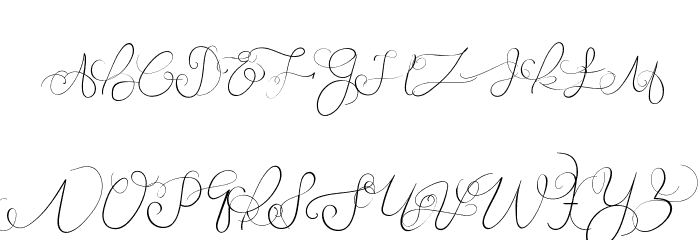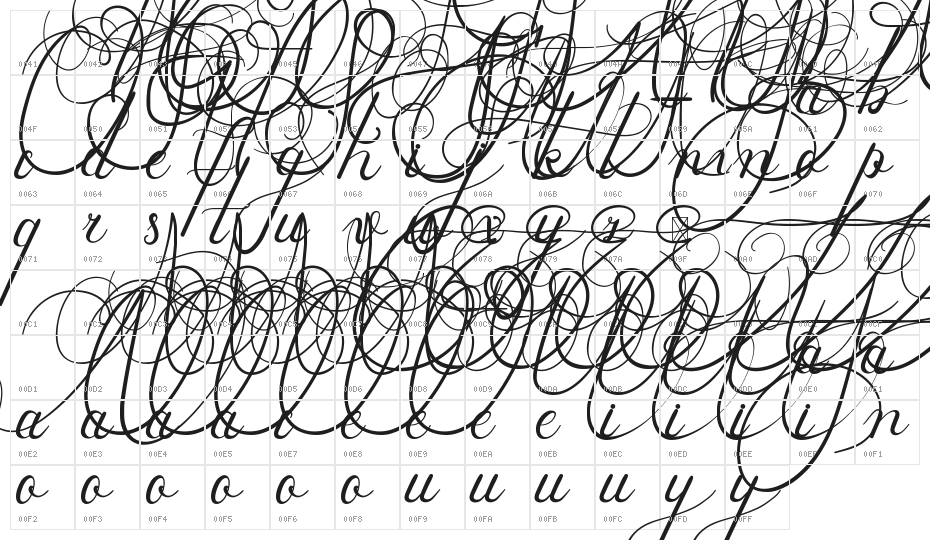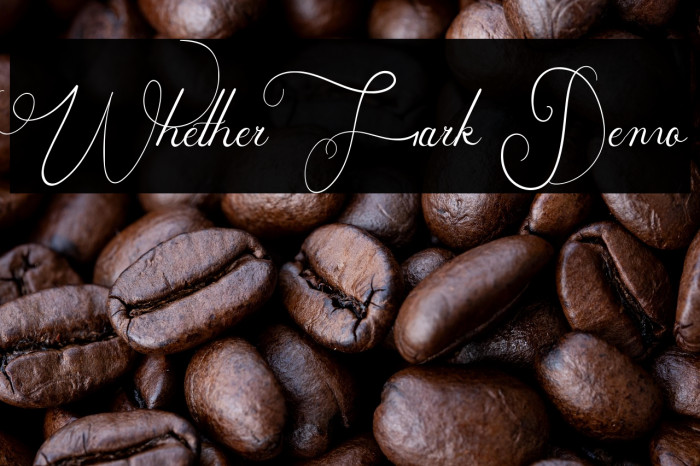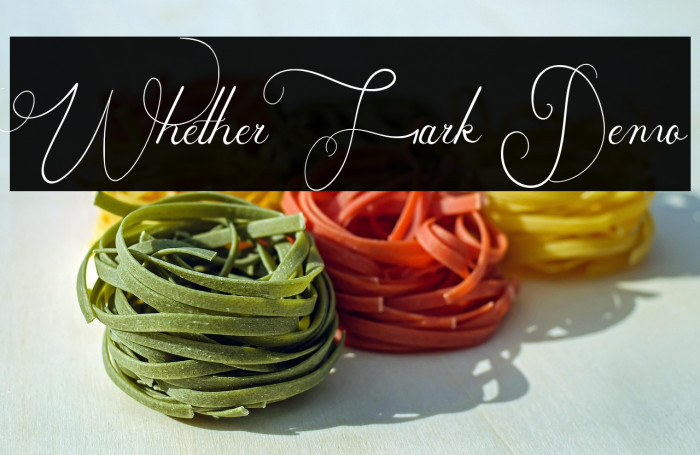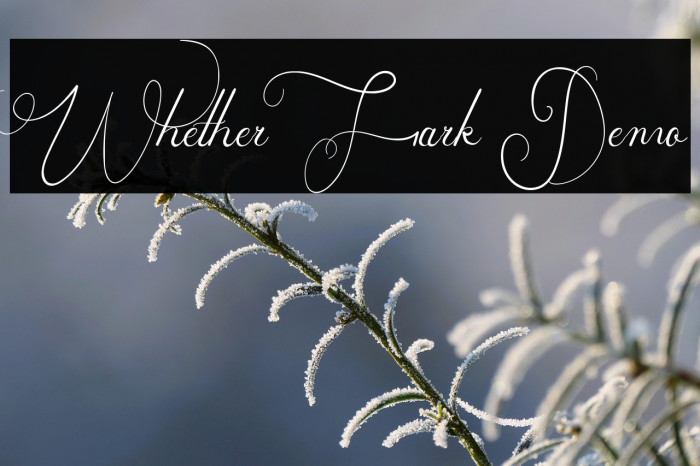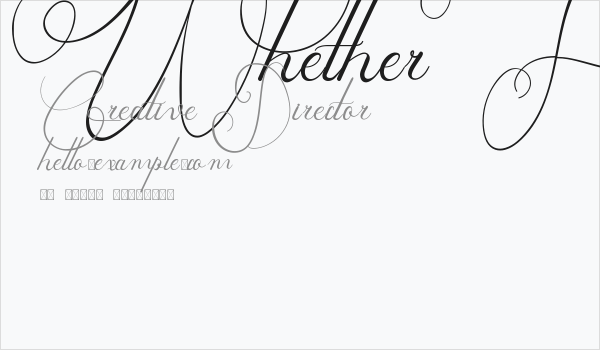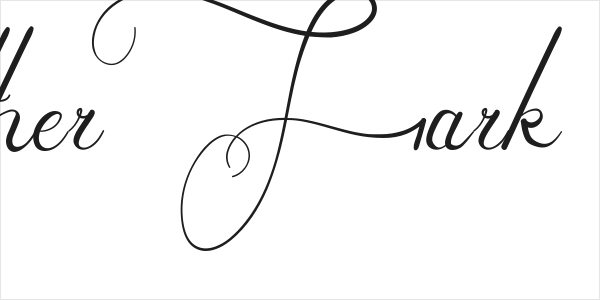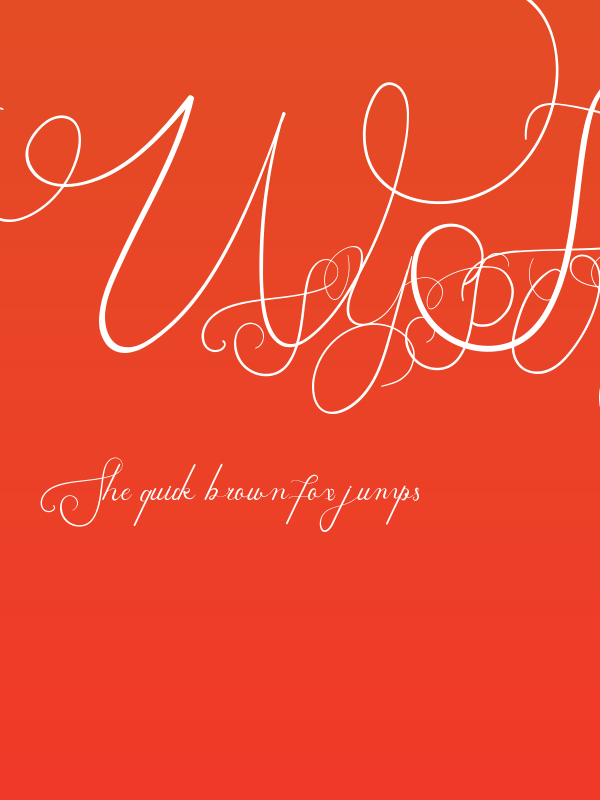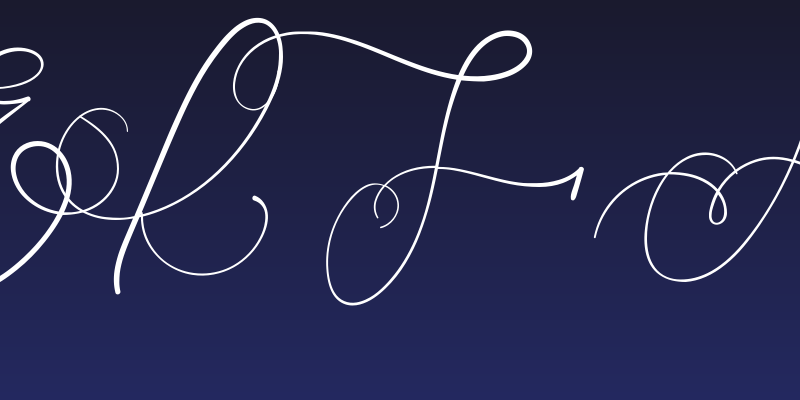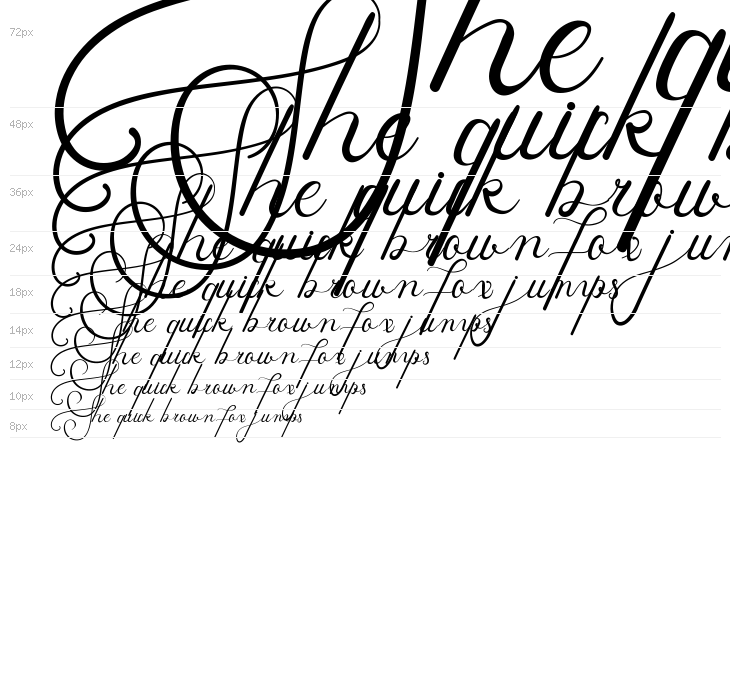
Whether Fark Demo Font
Whether Fark Demo Description
This font is an elegant and flowing script style, characterized by its intricate and decorative letterforms. Each character is crafted with delicate loops and swirls, giving it a sophisticated and artistic appearance. The uppercase letters are particularly ornate, with extended flourishes that add a sense of grandeur and formality. The lowercase letters maintain a consistent style, with smooth connections that enhance the font's cursive nature. The overall design is reminiscent of classic calligraphy, making it suitable for projects that require a touch of elegance and refinement.
| Proposed Projects | Ideal for wedding invitations, elegant branding, formal event programs, and artistic posters. |